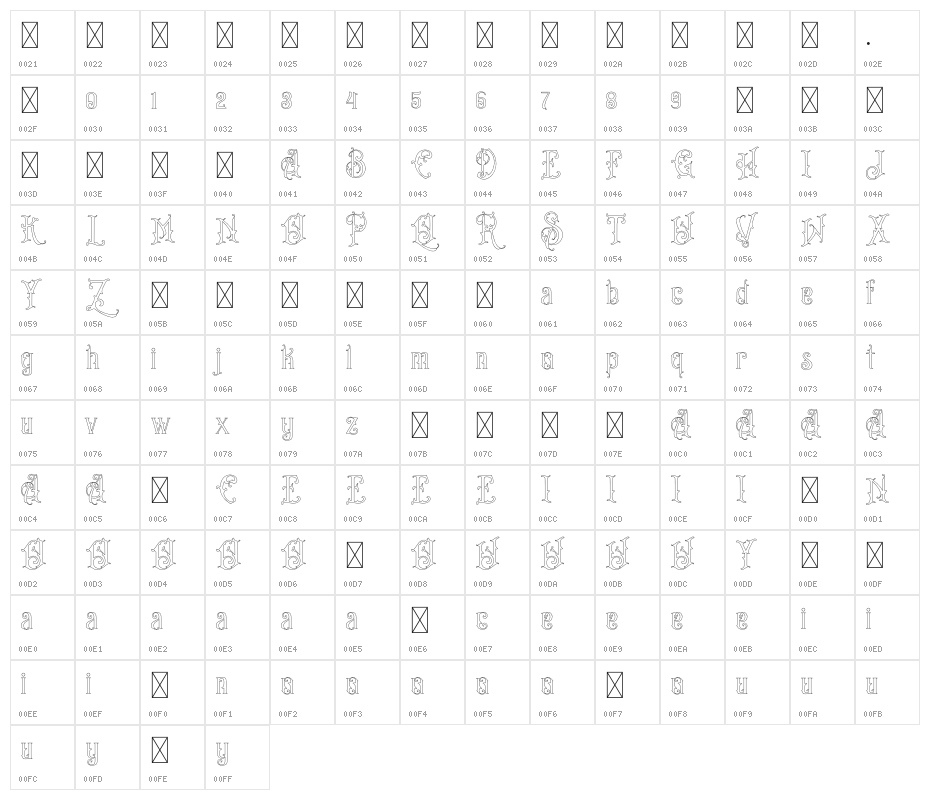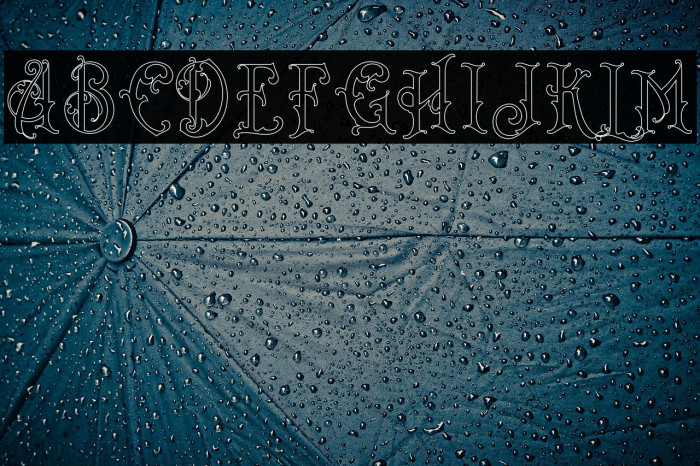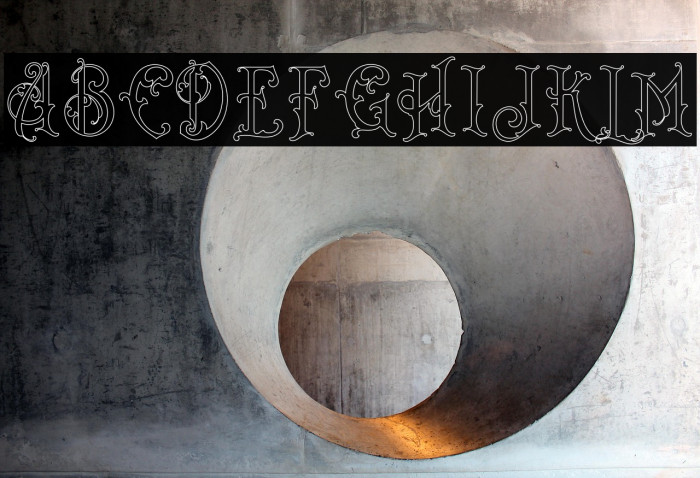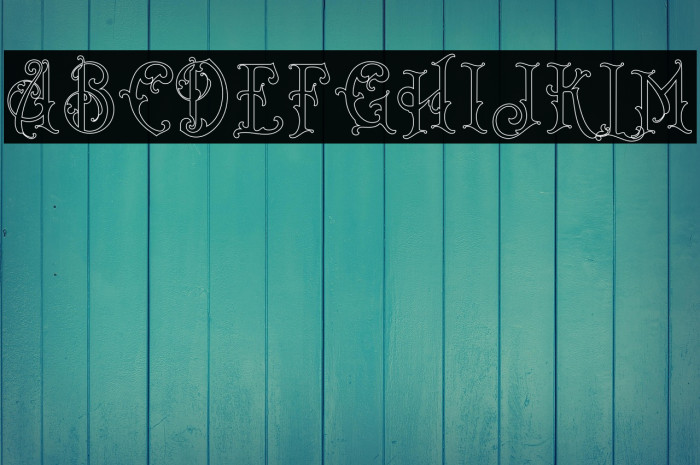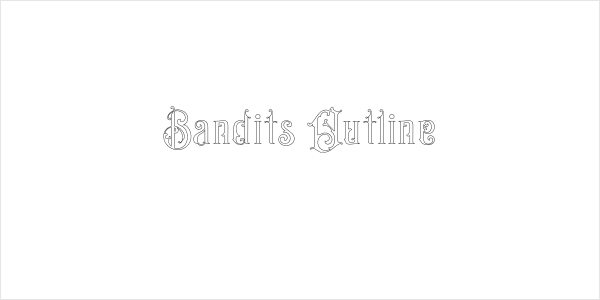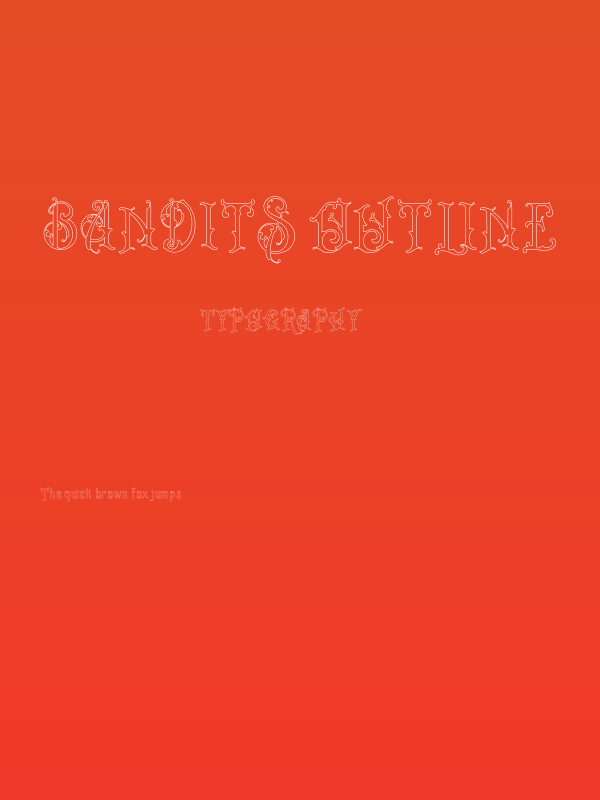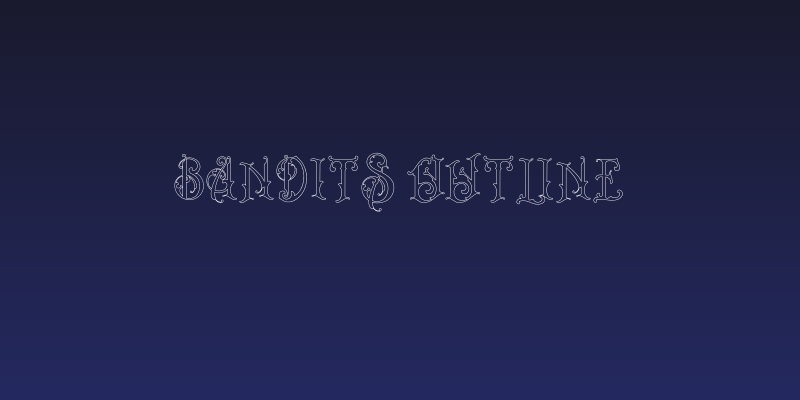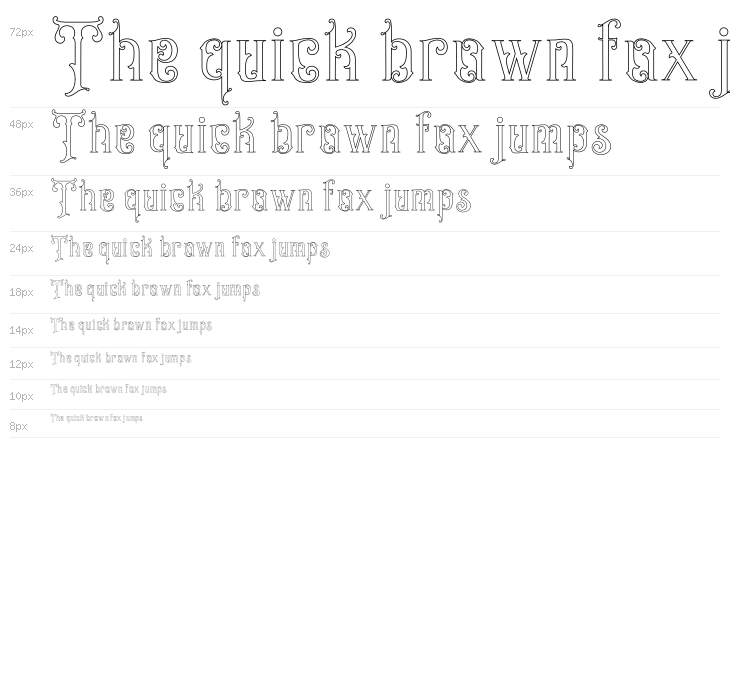
Bandits Outline Font
Bandits Outline Description
This font features an intricate outline design with a decorative flair, reminiscent of vintage Western aesthetics. Each character is crafted with unique embellishments, such as curls and hooks, giving it a distinct, ornate appearance. The uppercase letters are particularly elaborate, while the lowercase letters maintain the decorative style with slightly less complexity. The numerals are bold and consistent with the overall theme, making them stand out. This font's outlined nature adds a layer of depth and creativity, making it suitable for eye-catching designs.
| Proposed Projects | Ideal for Western-themed posters, vintage branding, creative invitations, and decorative signage. |